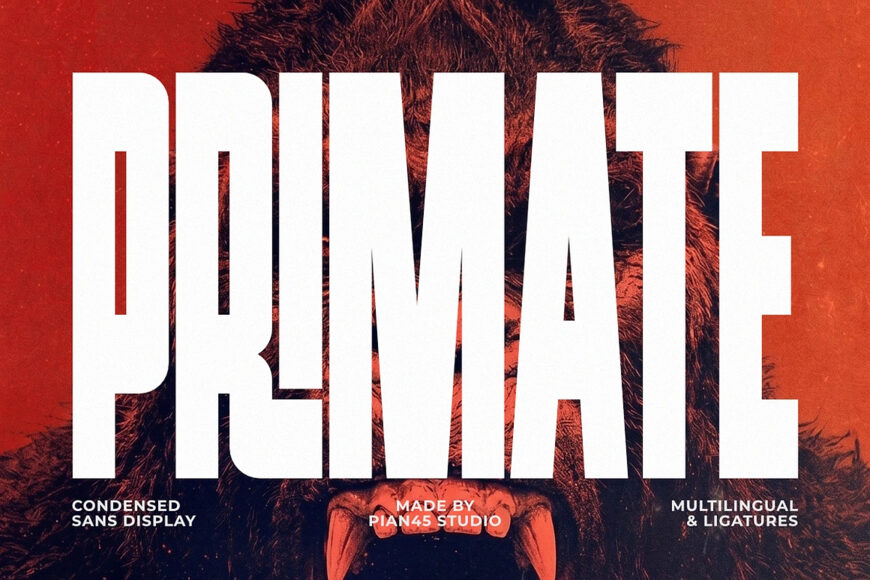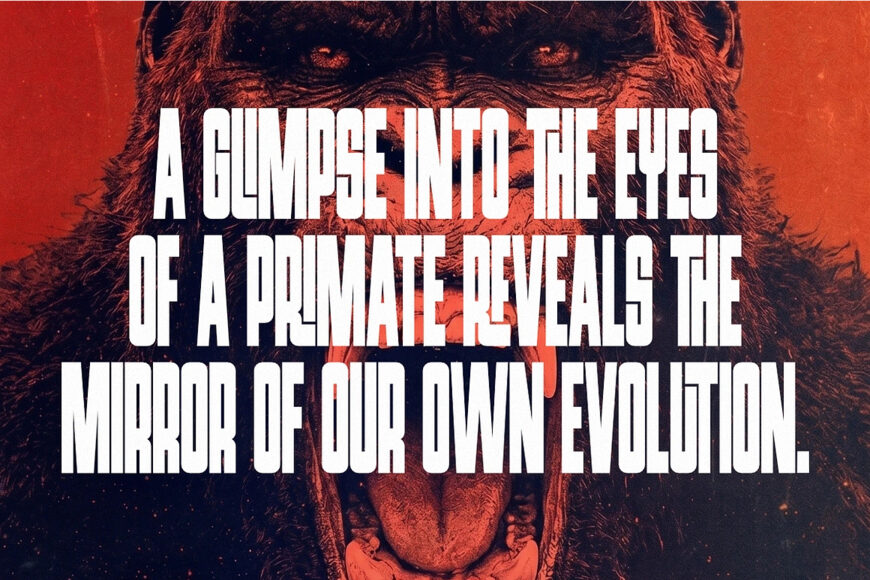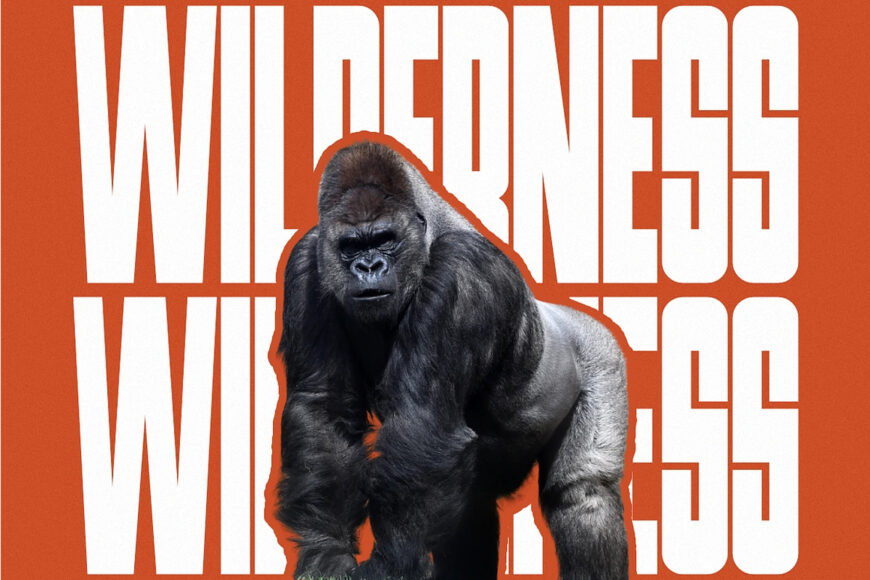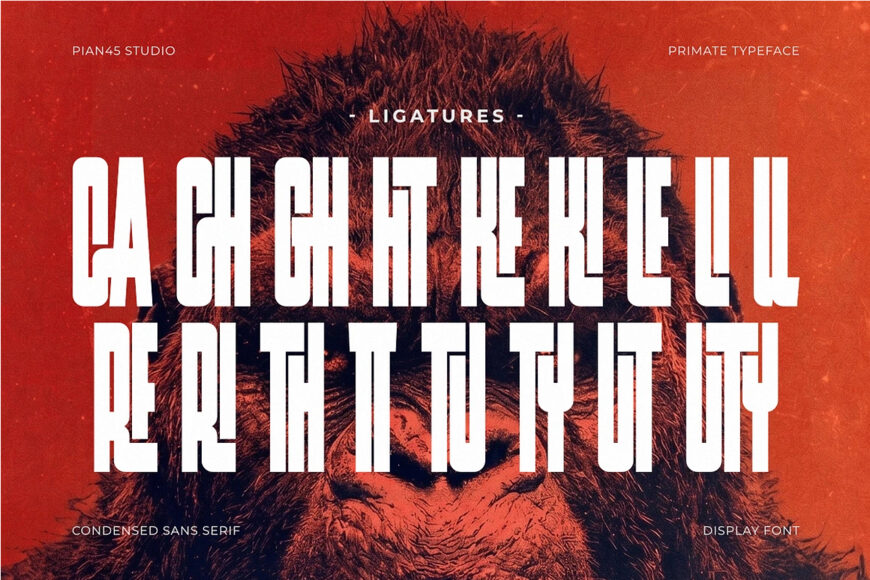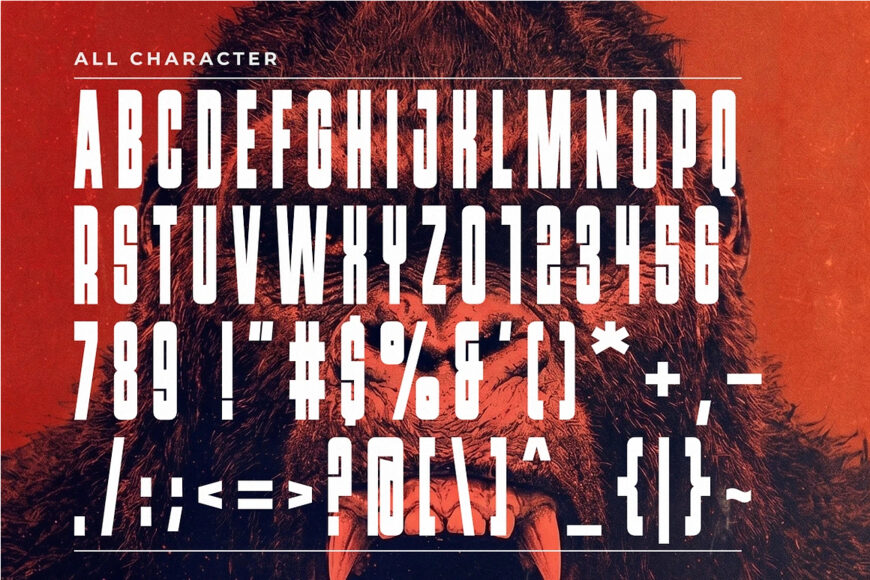
Primate Font
Primate is a raw, powerful, and high-impact Modern Condensed Sans Display font engineered to exude fierce energy and beastly visual dominance.
Featuring ultra-tall vertical structures, heavy blocky letterforms, sharp geometric ligatures, and a space-saving condensed typeface layout with full multilingual support, this all-caps font is built for monster branding, athletic sports logos, cinematic horror/action movie posters, streetwear fashion, and gaming graphics.